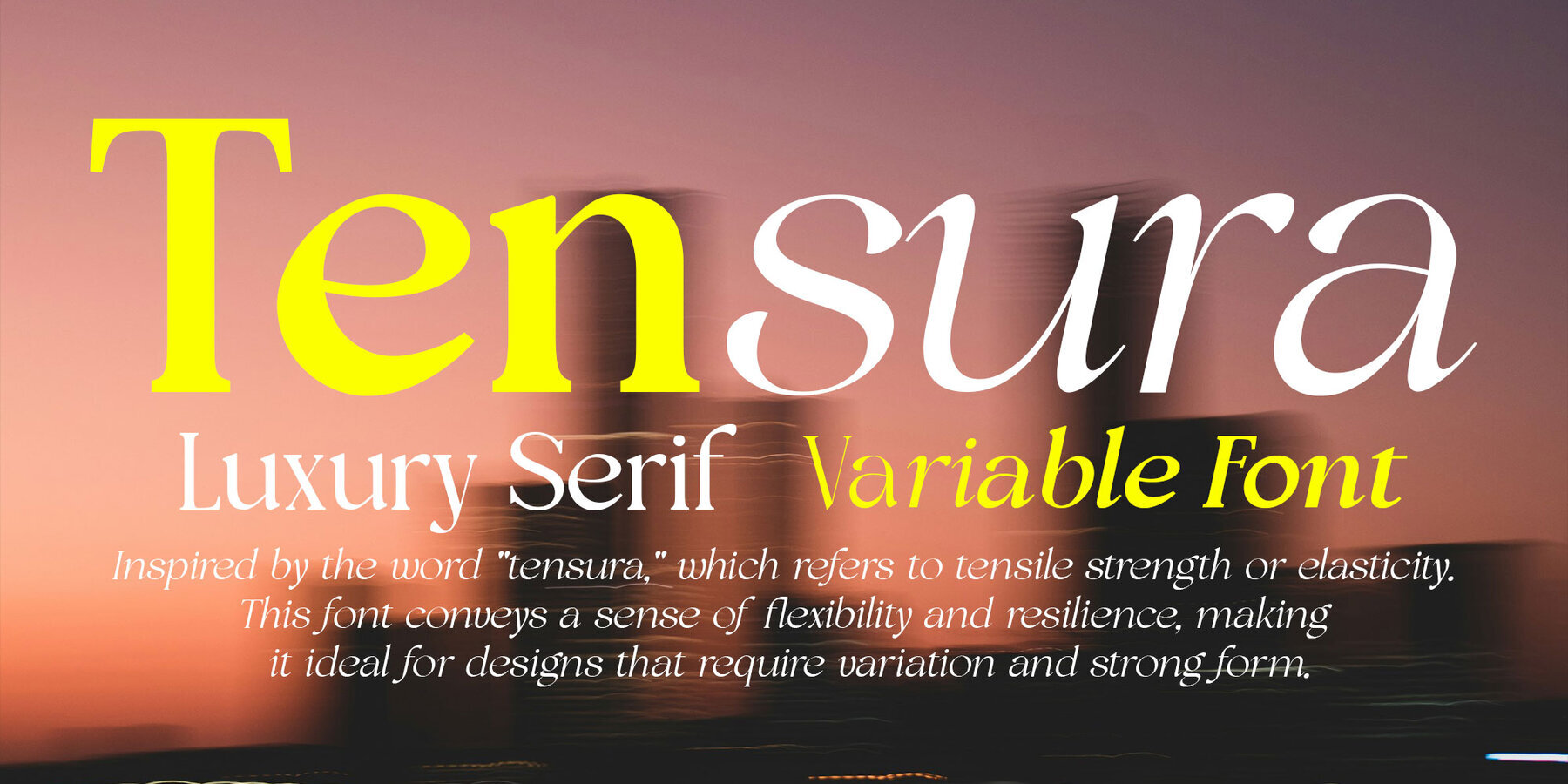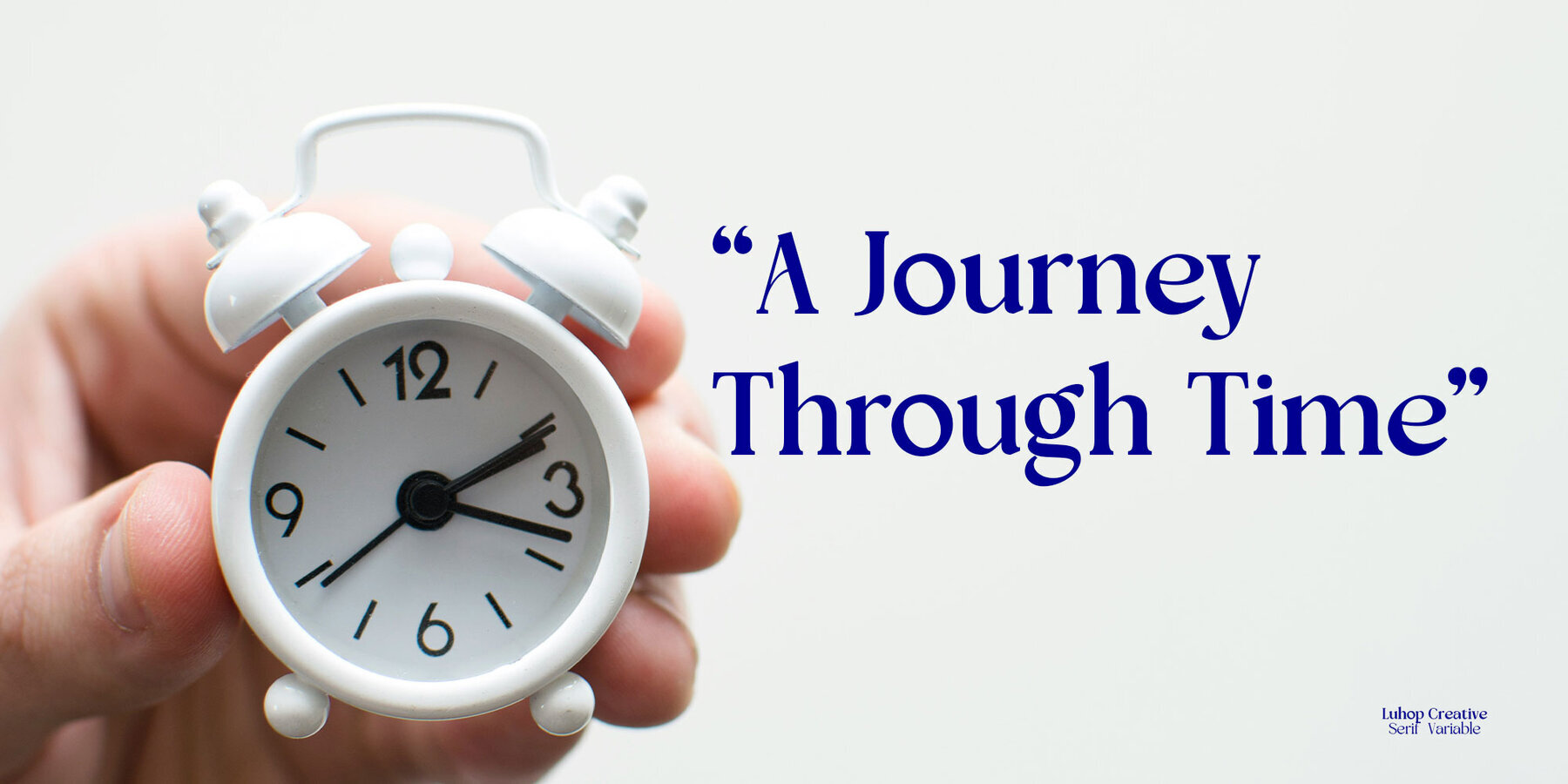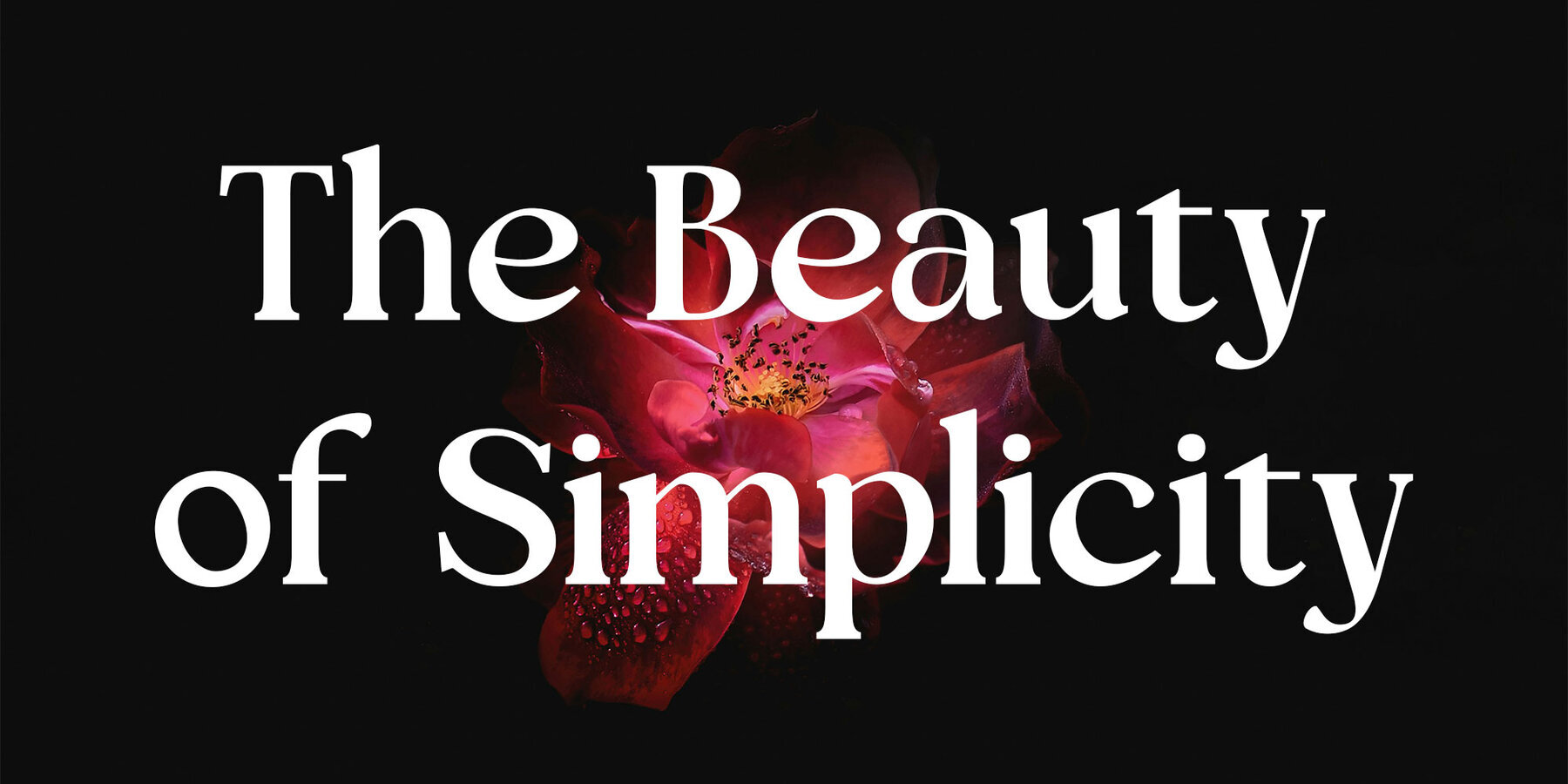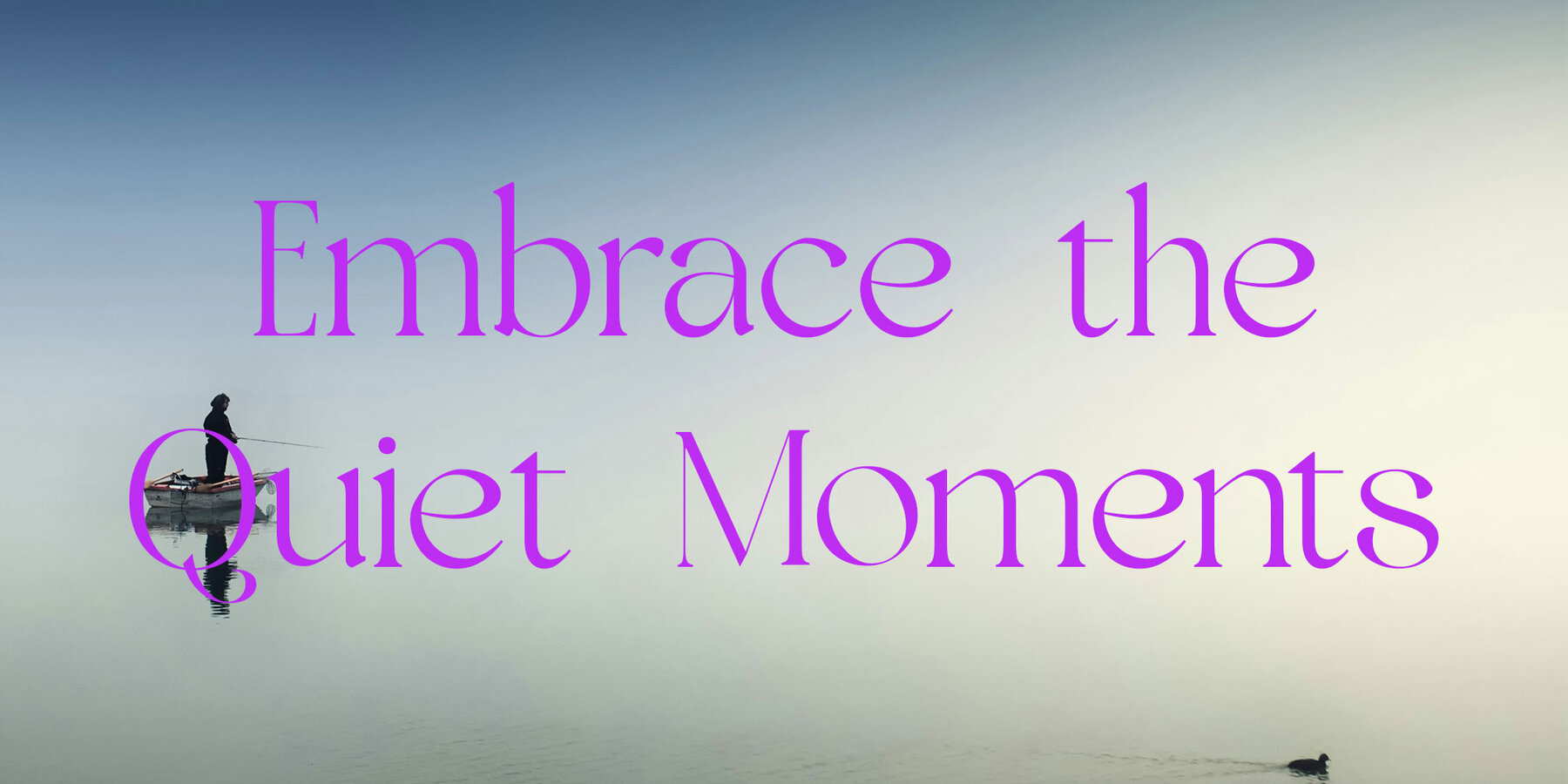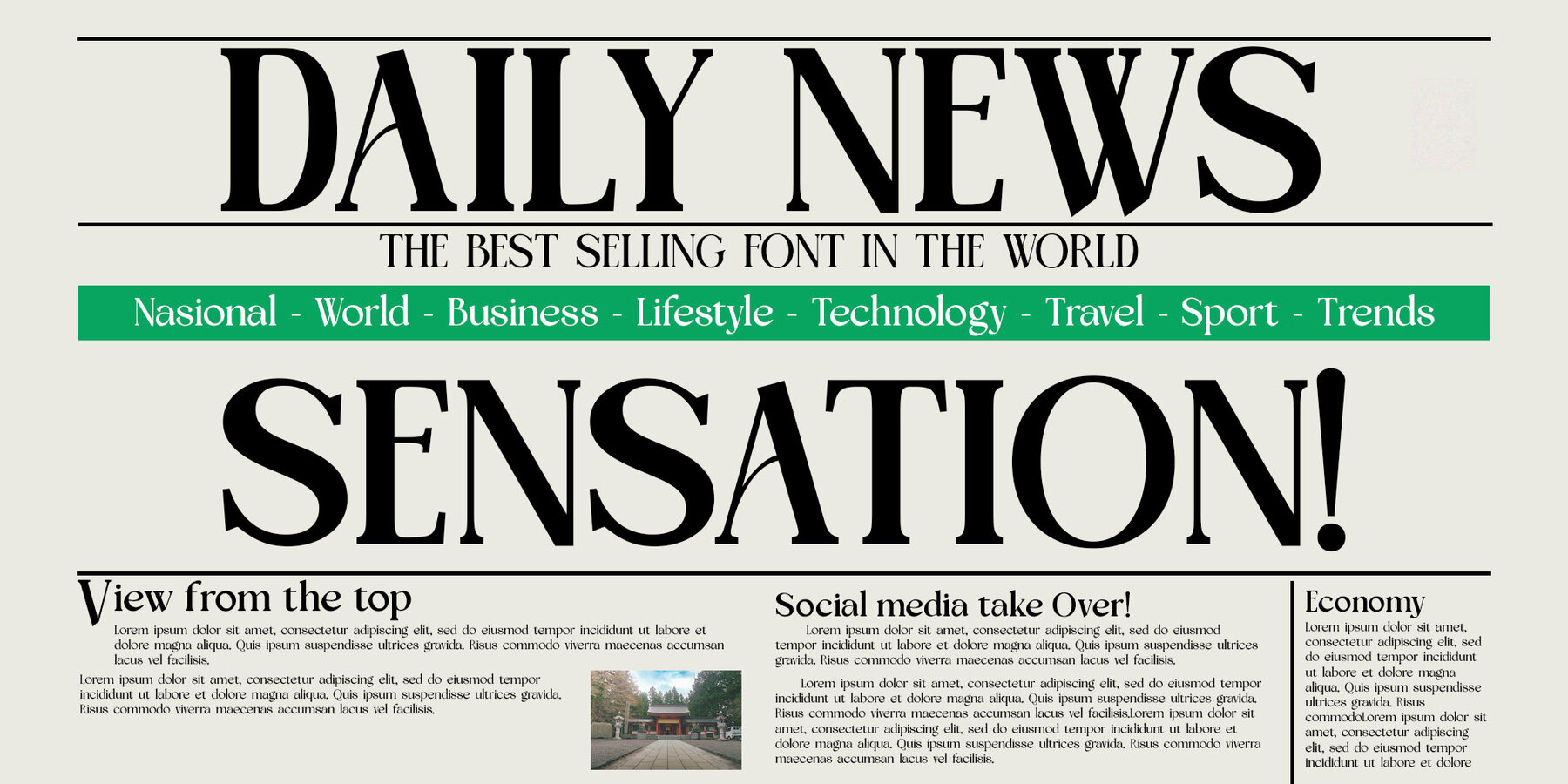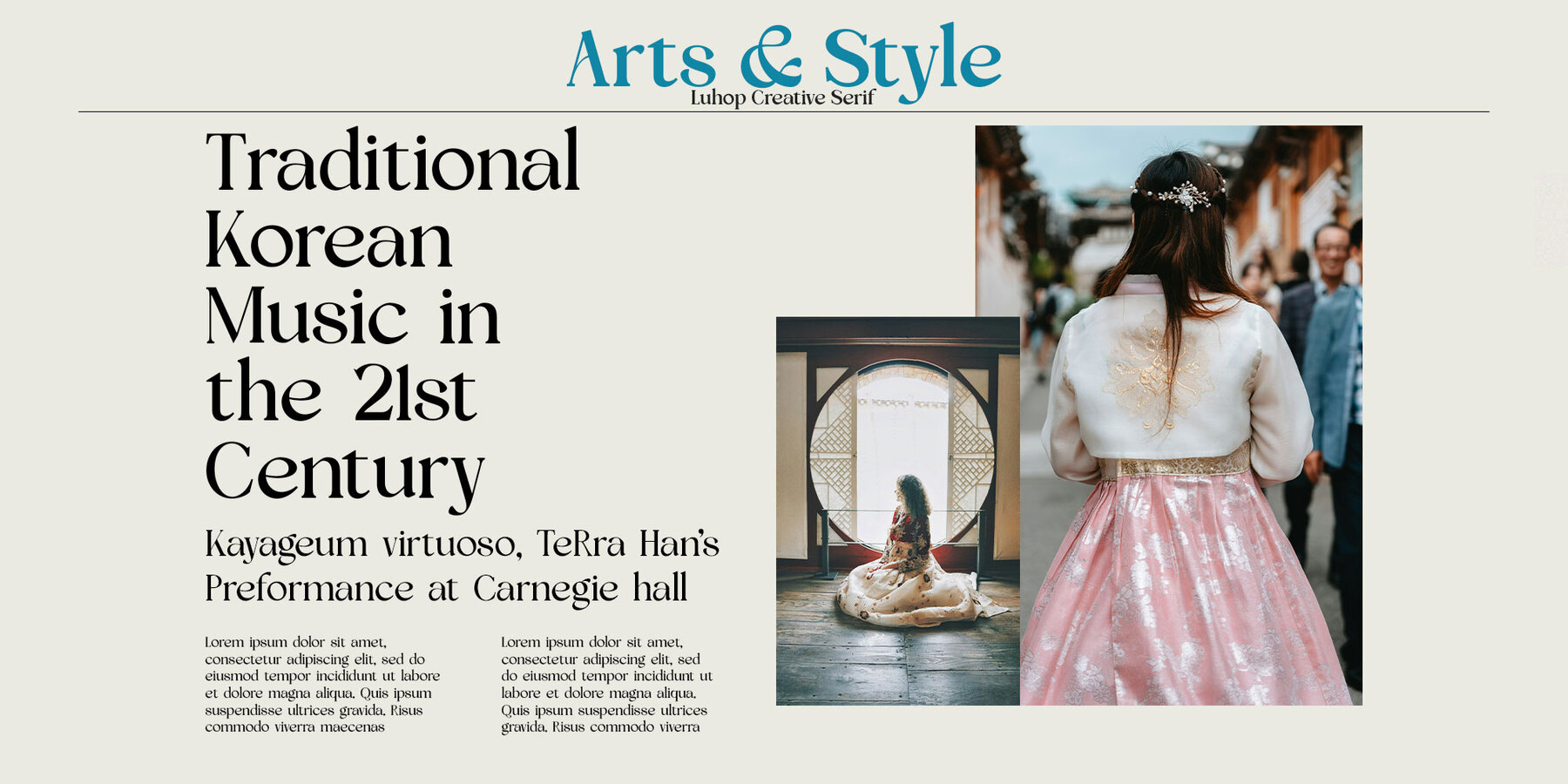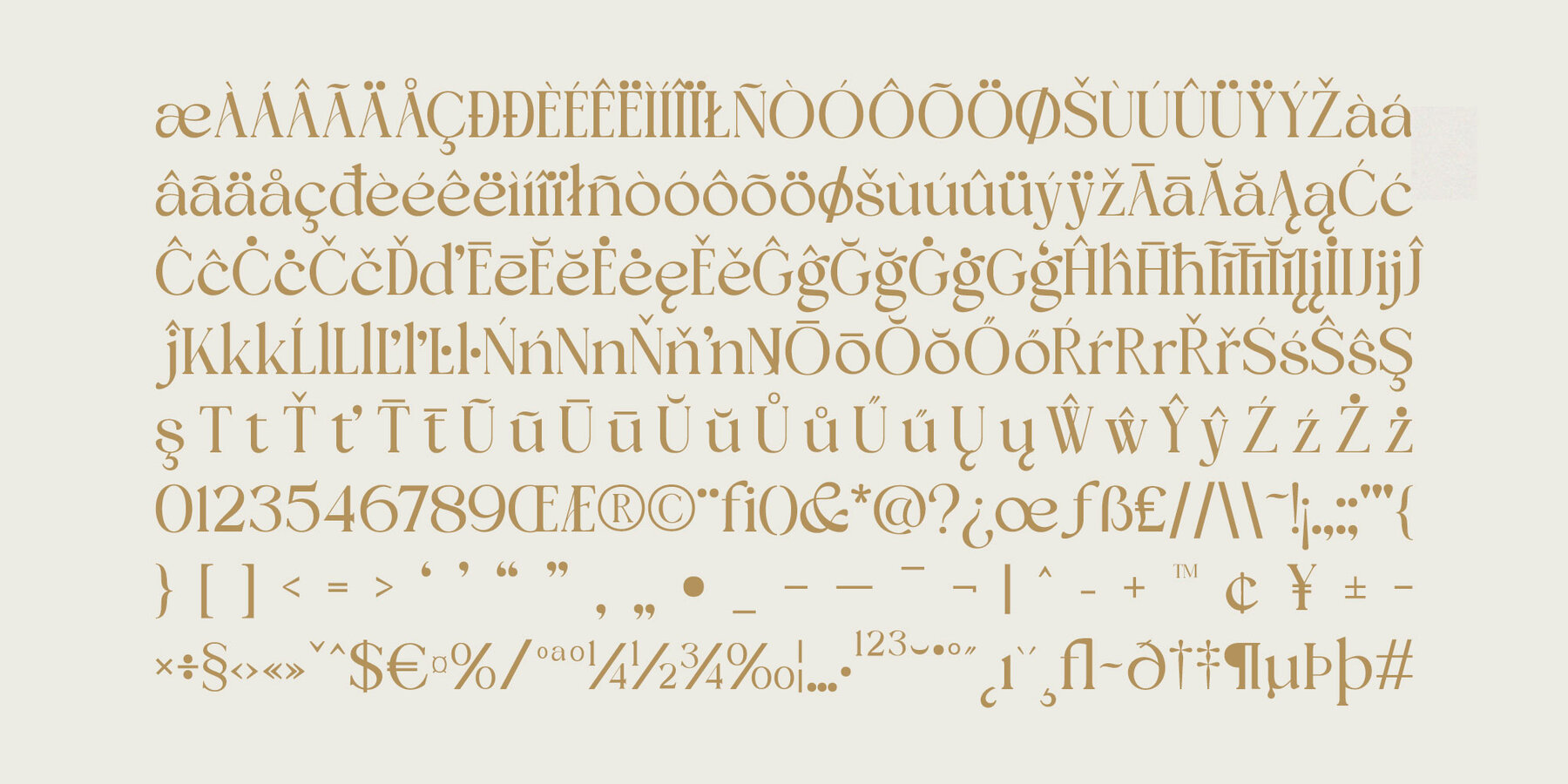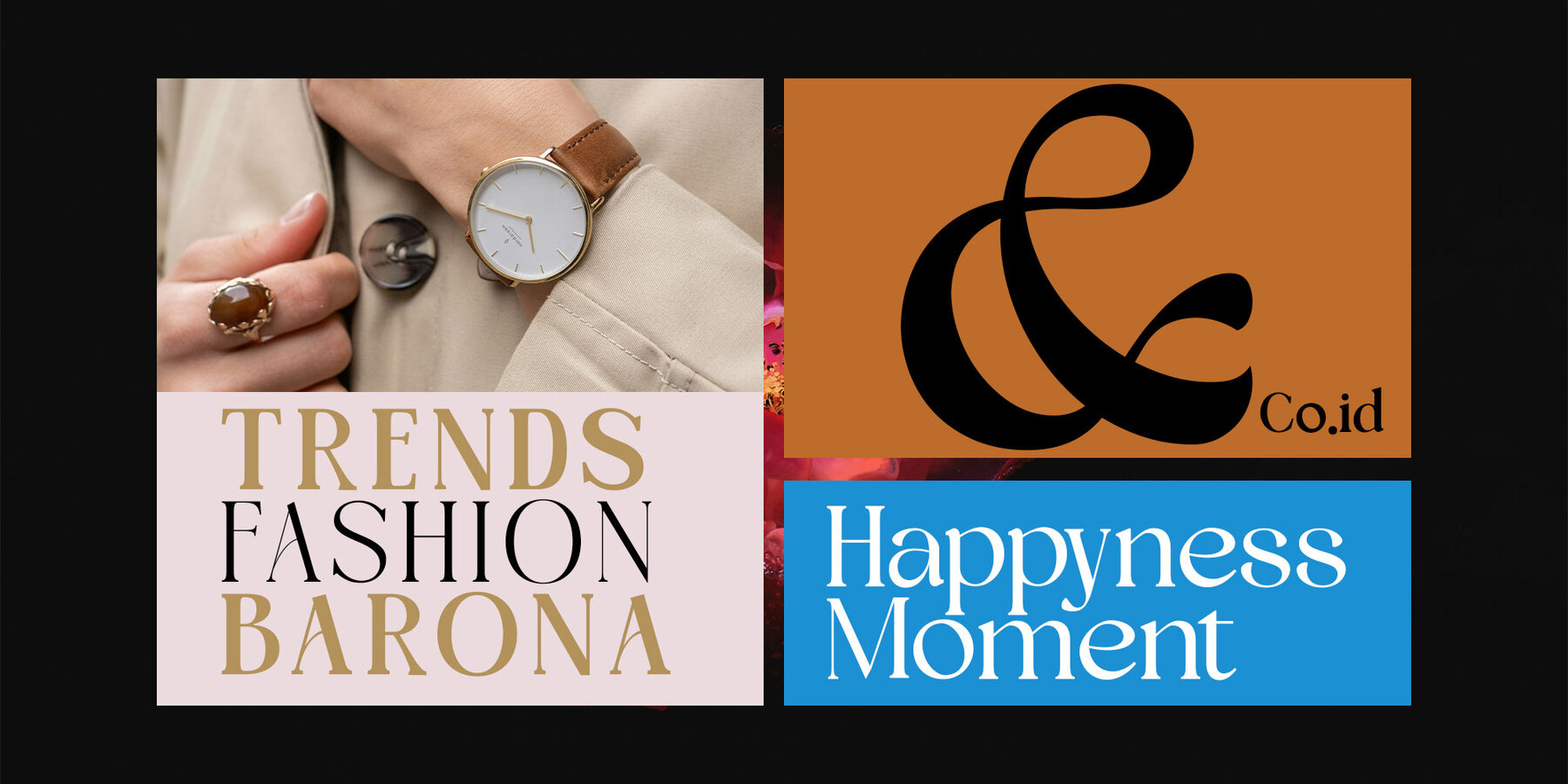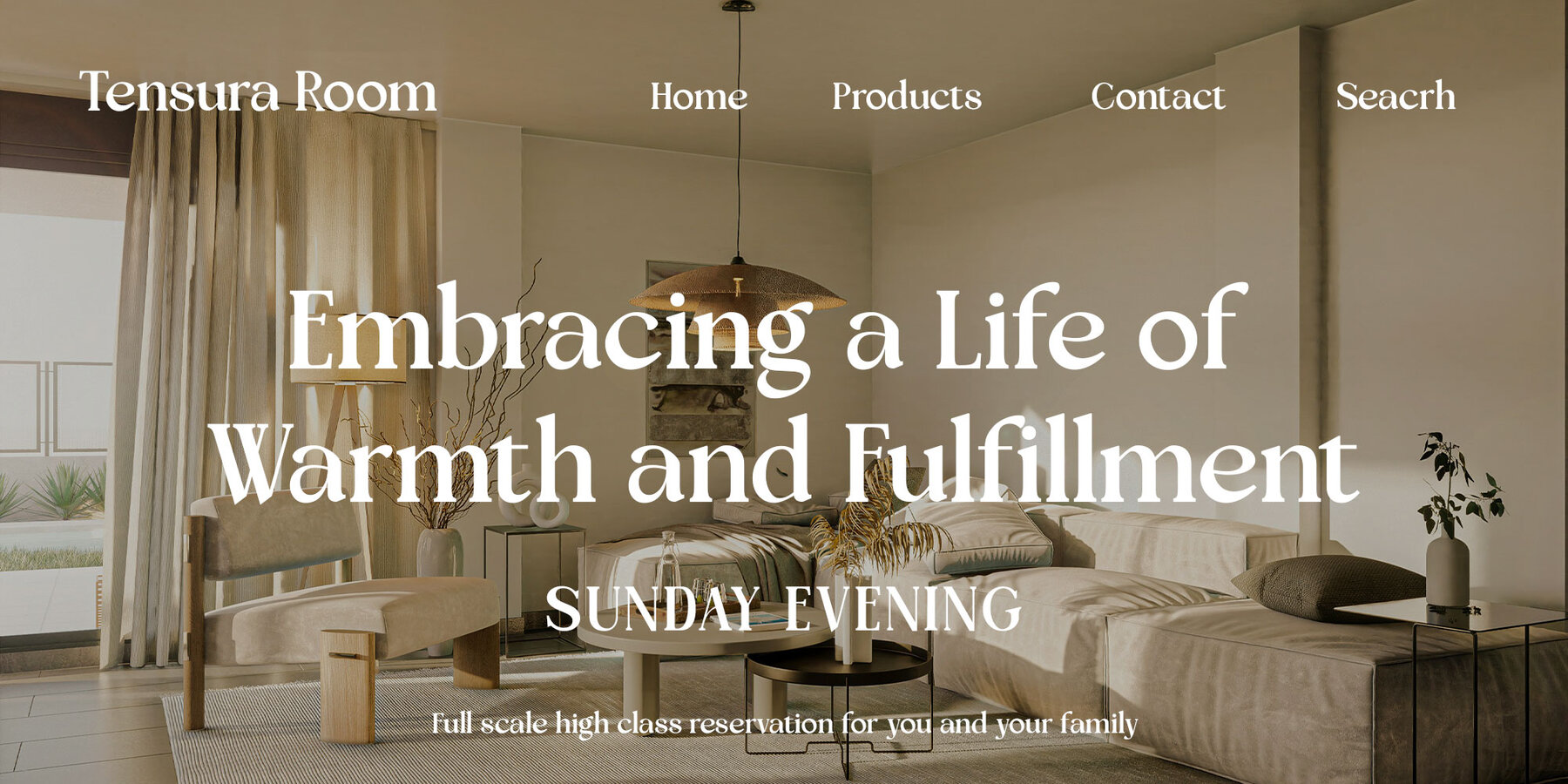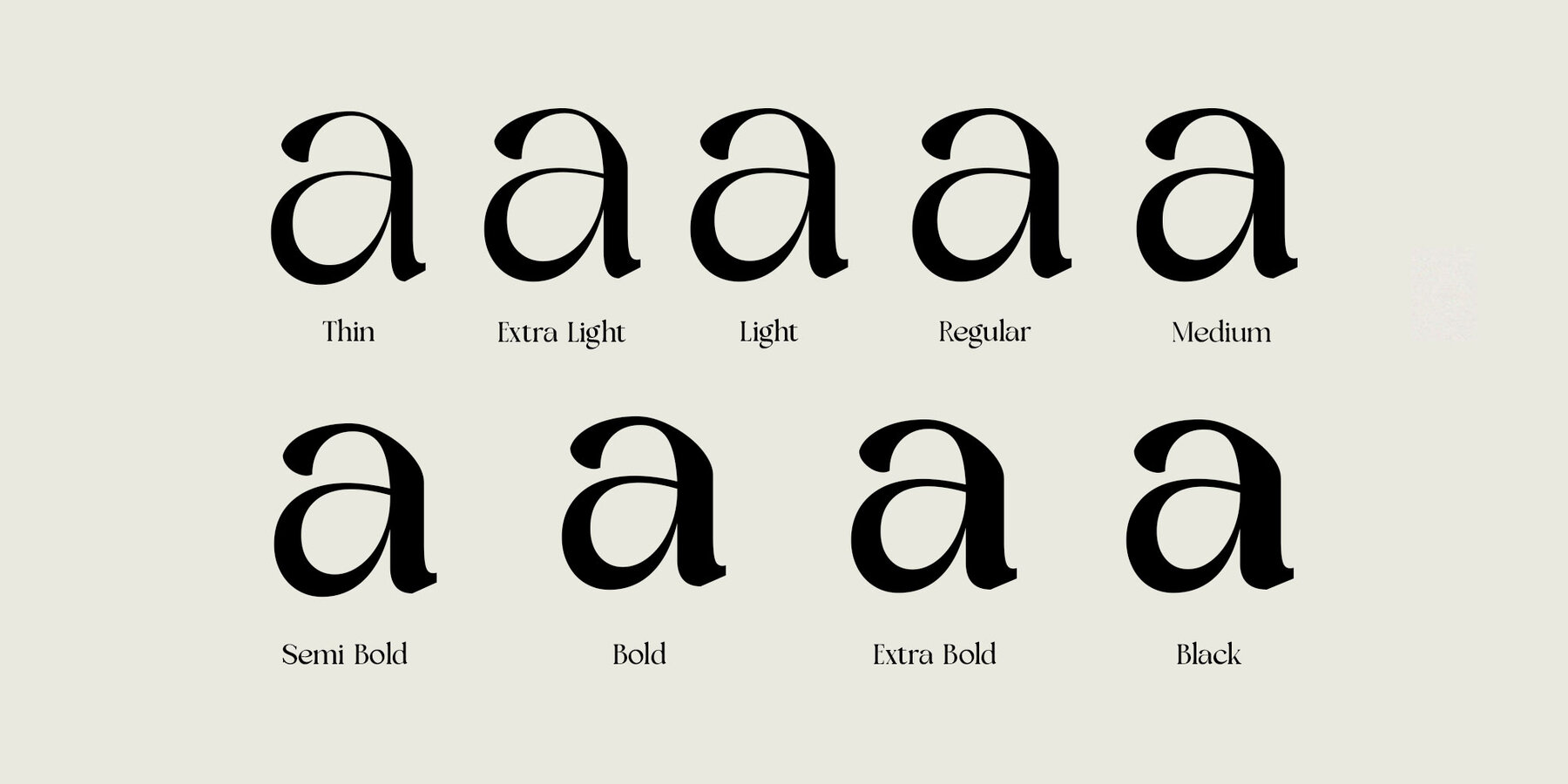
Tensura Font
Tensura Variable is a remarkably adaptable typeface, boasting 27 distinct styles. This versatility makes it an appealing choice for a spectrum of design needs. With cutting-edge variable font technology, it facilitates seamless transitions between weights, widths, and other aspects, offering a flexible tool for varied design tasks. Featuring 27 styles, Tensura Variable can be tailored to fit any design effort. Whether your project demands a light, regular, bold, or narrow style, this font suite provides a comprehensive range of options to meet specific design criteria. From digital platforms like websites and apps to print media such as posters and brochures, Tensura Variable excels across multiple mediums. Its adaptability allows it to function well in headlines, body text, logos, and promotional materials. Adjusting the font's weight, width, and more offers designers the ability to craft designs that are both visually appealing and functional. Whether dealing with large headings or fine print, Tensura Variable ensures consistency and readability. The font merges sleek, modern lines with rounded edges, ensuring a polished look in tune with current design trends. Its array of styles allows easy transitions between visual tones, accommodating various creative projects. With its distinctive design and array of styles, Tensura Variable is ideal for establishing a robust brand identity. It provides uniformity across all branding materials while permitting creative variations to accentuate different brand dimensions. Ultimately, Tensura Variable combines flexibility, style, and clarity, making it the ideal font for designers aiming to craft dynamic, professional, and visually coherent projects across diverse platforms and media.Tensura Variable: Adaptable Typography for Creative Projects
Extensive Style Range
Diverse Application
Dynamic Design
Contemporary Aesthetic
Branding Enhancement